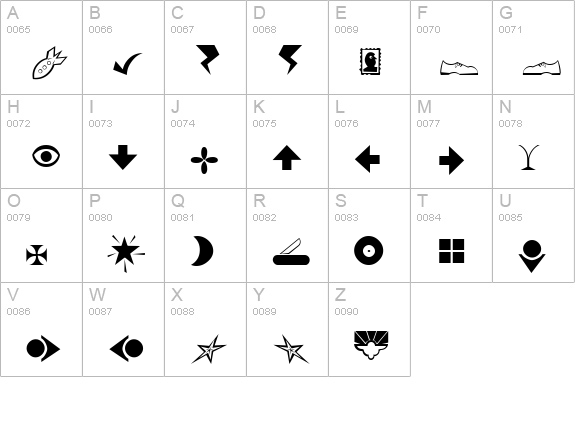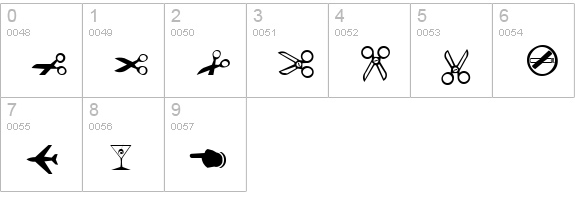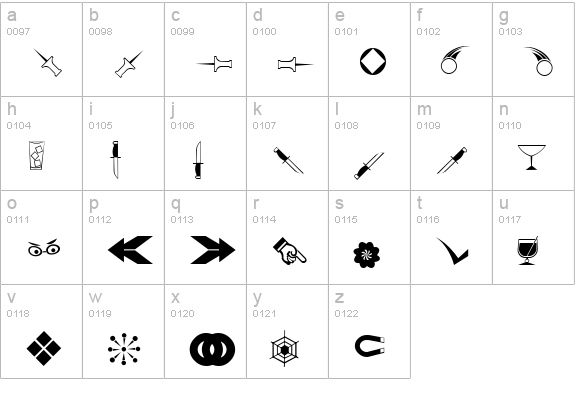
A&L Dingbats 1 Normal Font Details
A&L Dingbats 1 Normal is the standard, neutral variant in the A&L typeface family \xE2\x80\x94 well suited to general body text, paragraphs, and standard typographic work.
The A&L Dingbats 1 Normal font is a versatile and unique typeface that will add a touch of creativity to any design project. With its wide range of dingbat symbols and icons, this font is perfect for adding decorative elements to posters, flyers, logos, and more. From arrows and stars to animals and music notes, the dingbats in this font offer endless possibilities for enhancing your designs. The A&L Dingbats 1 Normal font is not only visually appealing but also highly functional. Each symbol has been meticulously crafted to ensure clarity and legibility, making it easy for viewers to understand and interpret the message you are conveying. Whether you are designing for print or digital media, this font will make your work stand out from the crowd. One of the best aspects of the A&L Dingbats 1 Normal font is that it is absolutely free. That's right, you can download this font for no cost at all from FontsMarket.com. This means that you can use it in your personal and commercial projects without any restrictions or limitations. It's a fantastic opportunity to enhance your designs without breaking the bank. So why wait? Add a touch of creativity and uniqueness to your designs with the A&L Dingbats 1 Normal font. Download it for free today at FontsMarket.com and start exploring the endless possibilities this font has to offer. Whether you're a professional designer or a hobbyist, this font is sure to become a valuable addition to your creative toolkit.